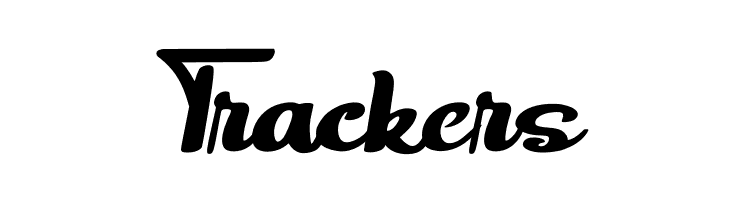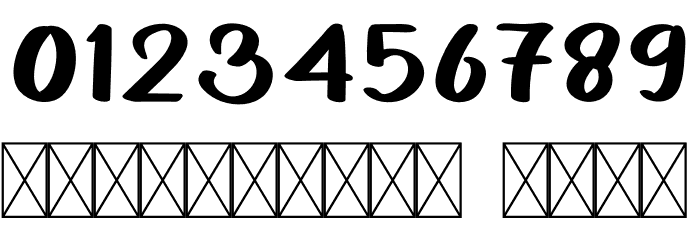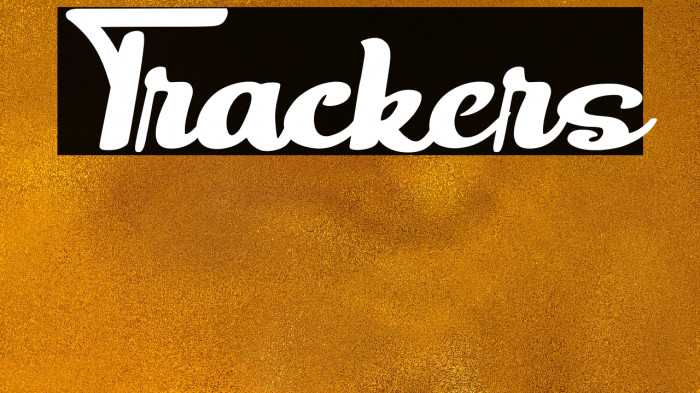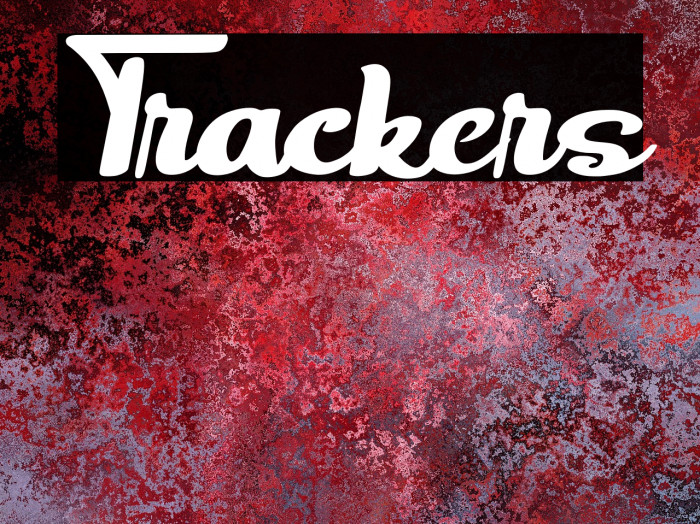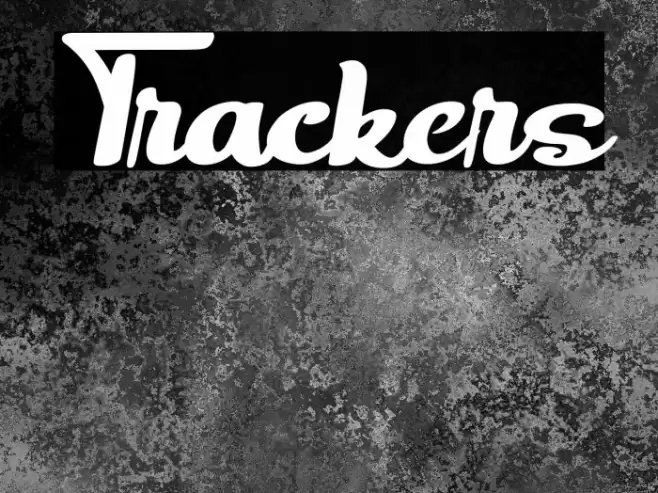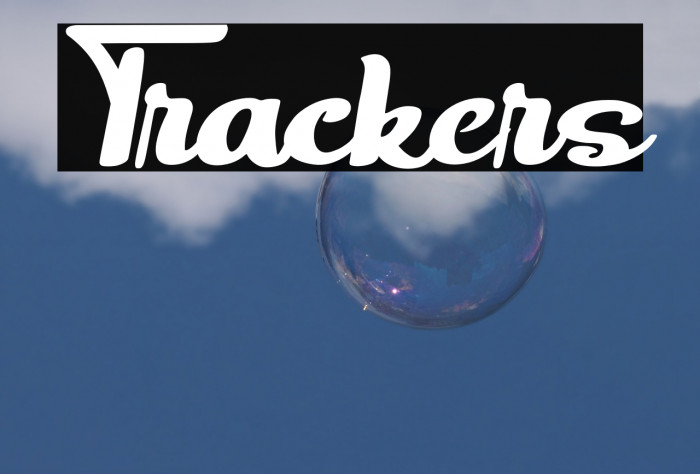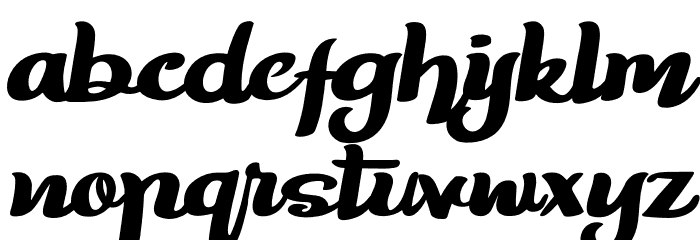
Trackers Font
Trackers Description
This font features a bold and dynamic script style with a modern flair. The uppercase letters are characterized by sweeping curves and distinctive flourishes, giving them a sense of movement and elegance. The lowercase letters maintain a consistent flow, with rounded edges and smooth connections between characters. The numbers are bold and slightly rounded, complementing the overall style. The special characters are designed to match the script's aesthetic, adding versatility to its use. This font's boldness and unique style make it suitable for eye-catching designs.
A bold, modern script font with dynamic curves and elegant flourishes from Script fonts.